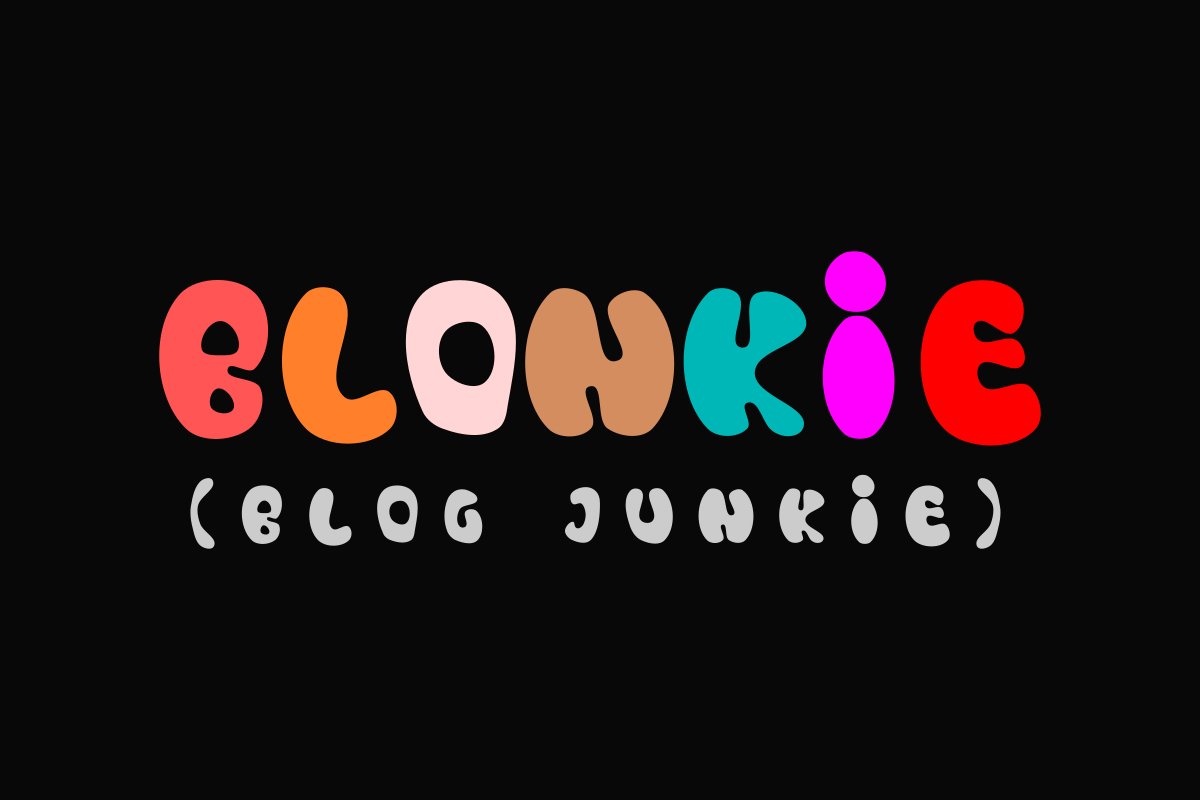
Blonkie Display Font
Blonkie
Introducing Blonkie Display Font.
Great for posters, cards, book covers, social media, cartoon designs, comics, and many more!